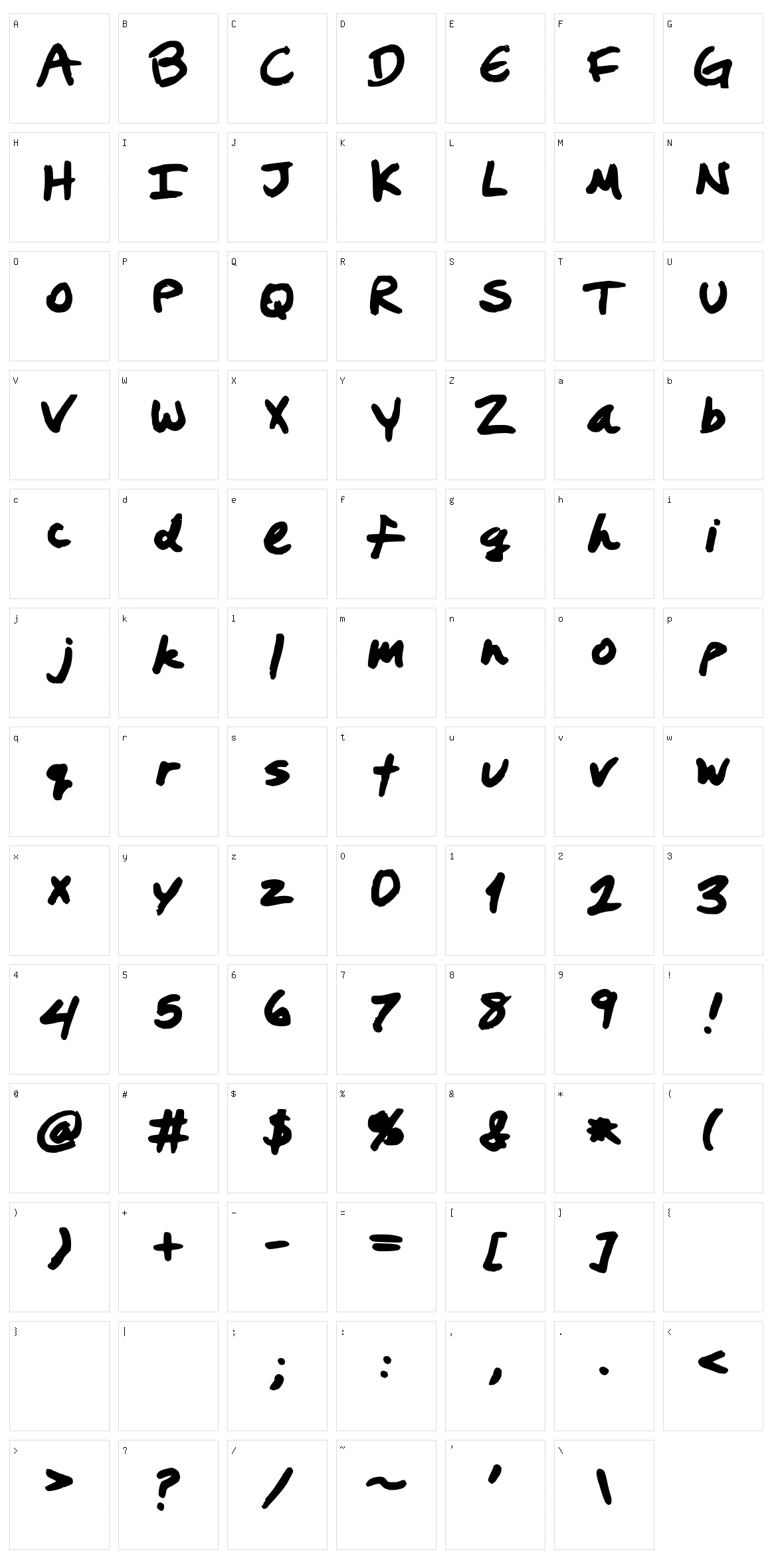
The free font Prestons Writing is carefully designed by Sequin Sky Entertainment, showcasing a thoughtful balance of creativity and usability and falls under the Script font style. When you download the ZIP file, it contains only 15.98 KB of font files, making it lightweight and quick to download. Please review the license details below to understand permitted usage and distribution rights. If license information is not available, we recommend using this font for personal projects only or contacting the author directly for commercial usage permissions.